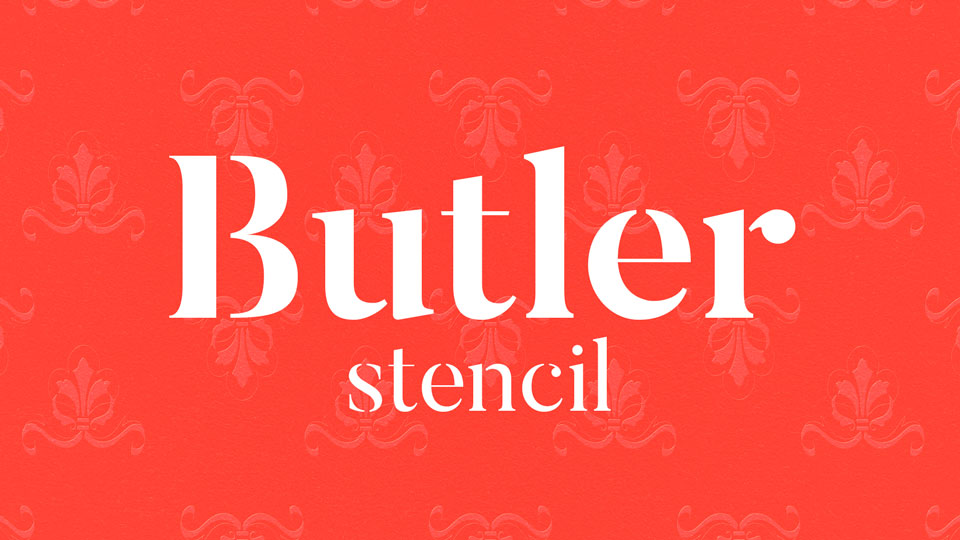
Butler is a free serif typeface inspired by a mix between both Dala Floda & the amazing Bodoni family. The main goal was to bring a bit of modernism to serif fonts by working on the curves of classical serif fonts and adding an extra stencil family. It includes 7 stencil weights, contains uppercase and lowercase letters, numerals and symbols. This font works well for titles, logos, headings, and posters.